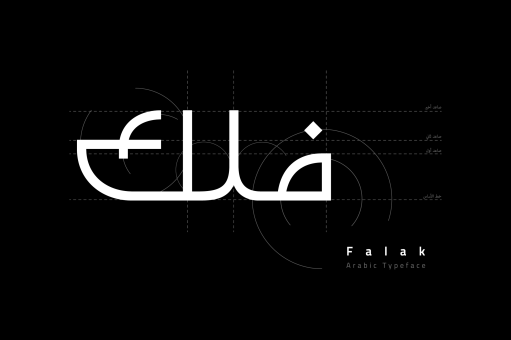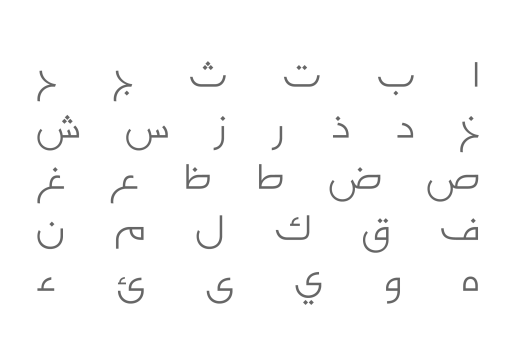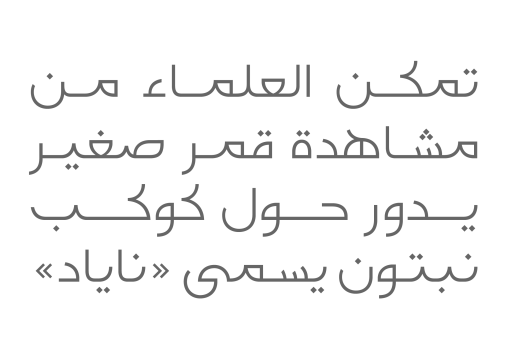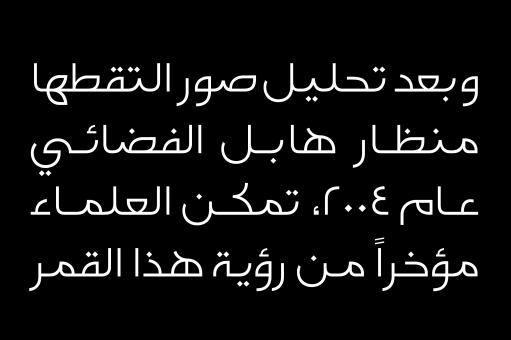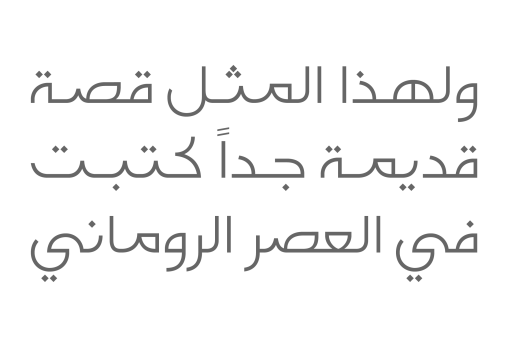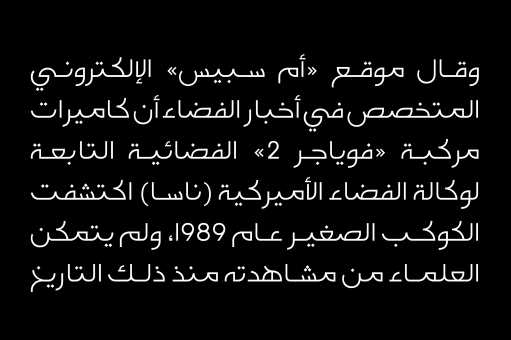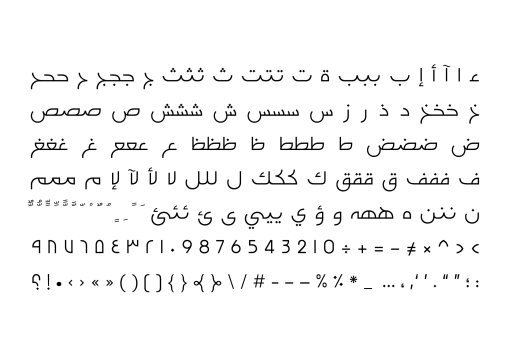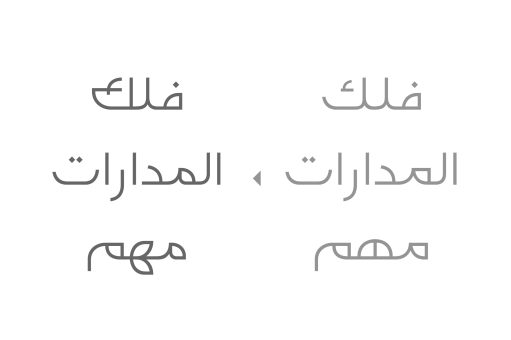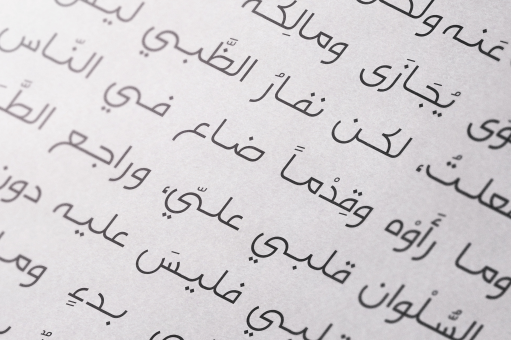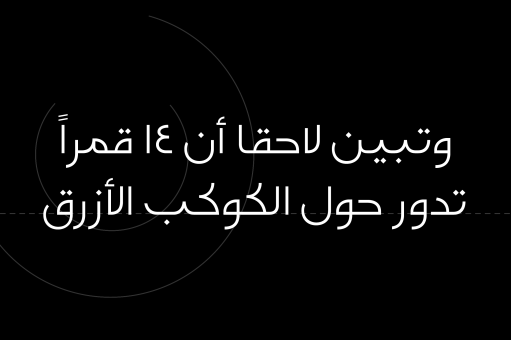
Falak
Falak is an Arabic display font with rounded letterform that is inspired by the theme of astronomy and natural science. The font includes a stylistic set and it suits creative titling on both web and print.